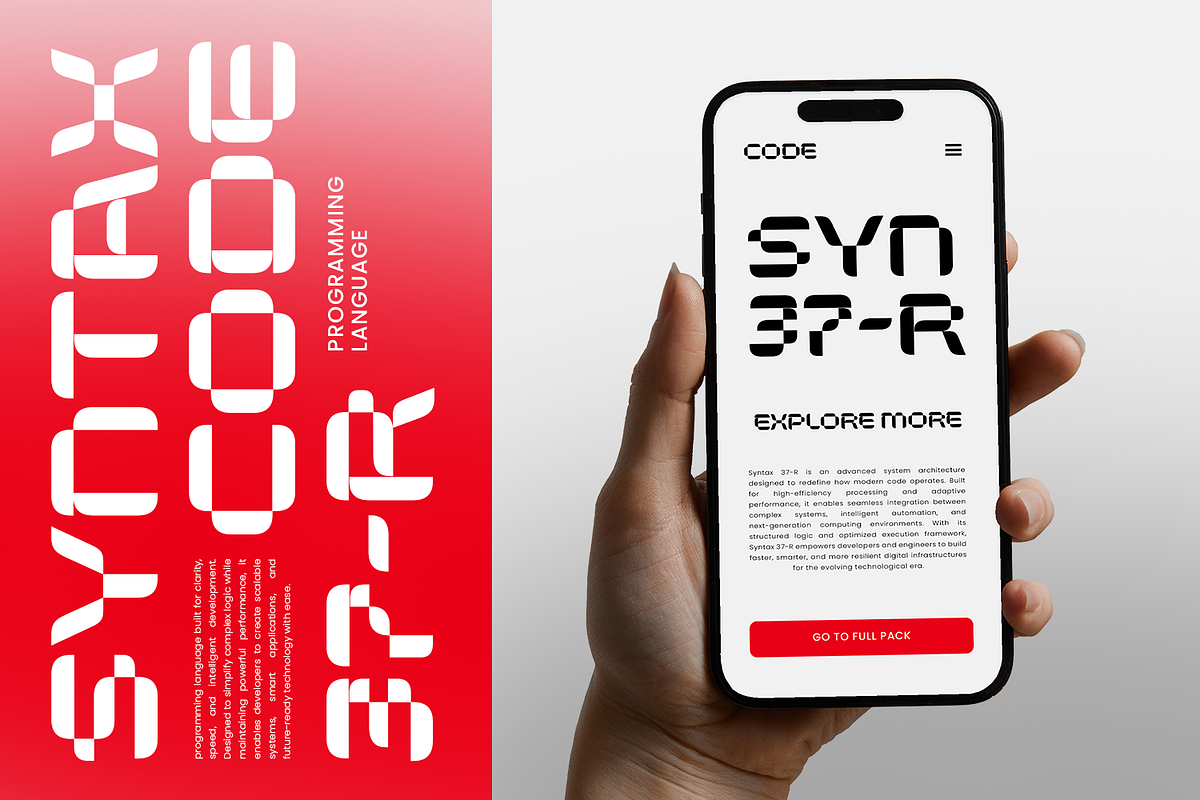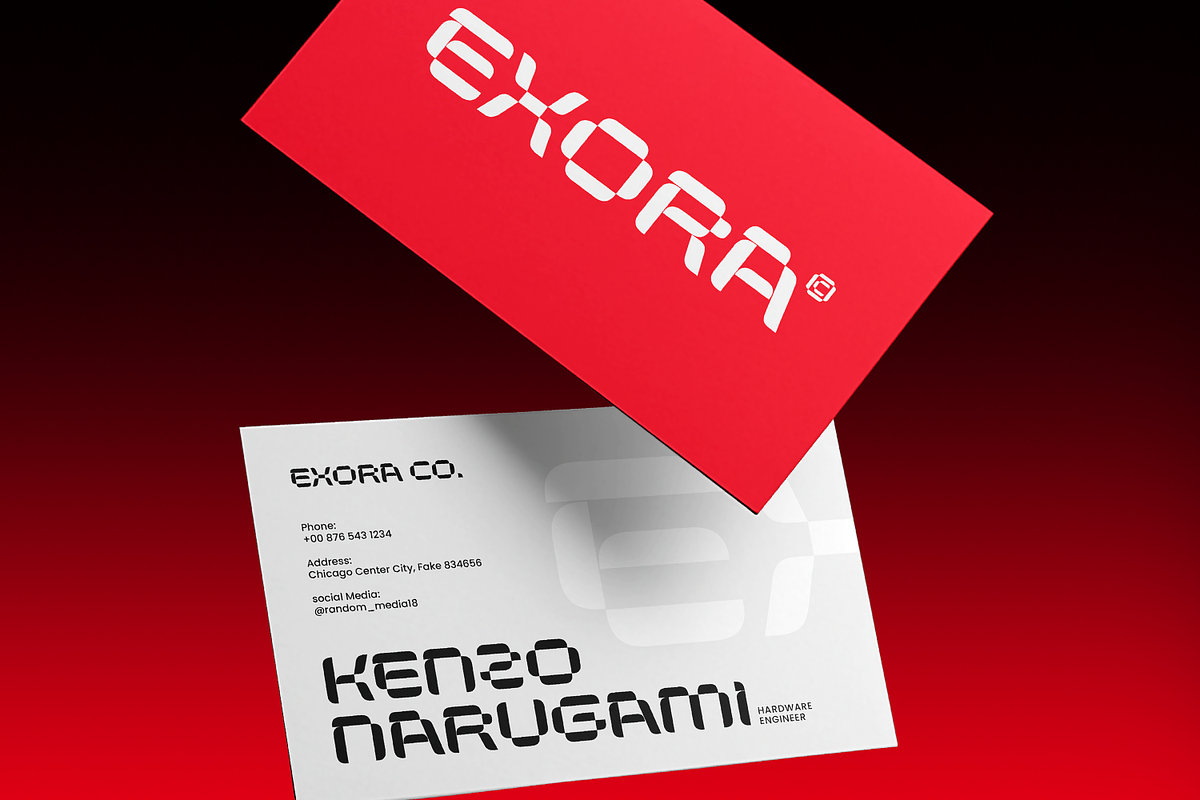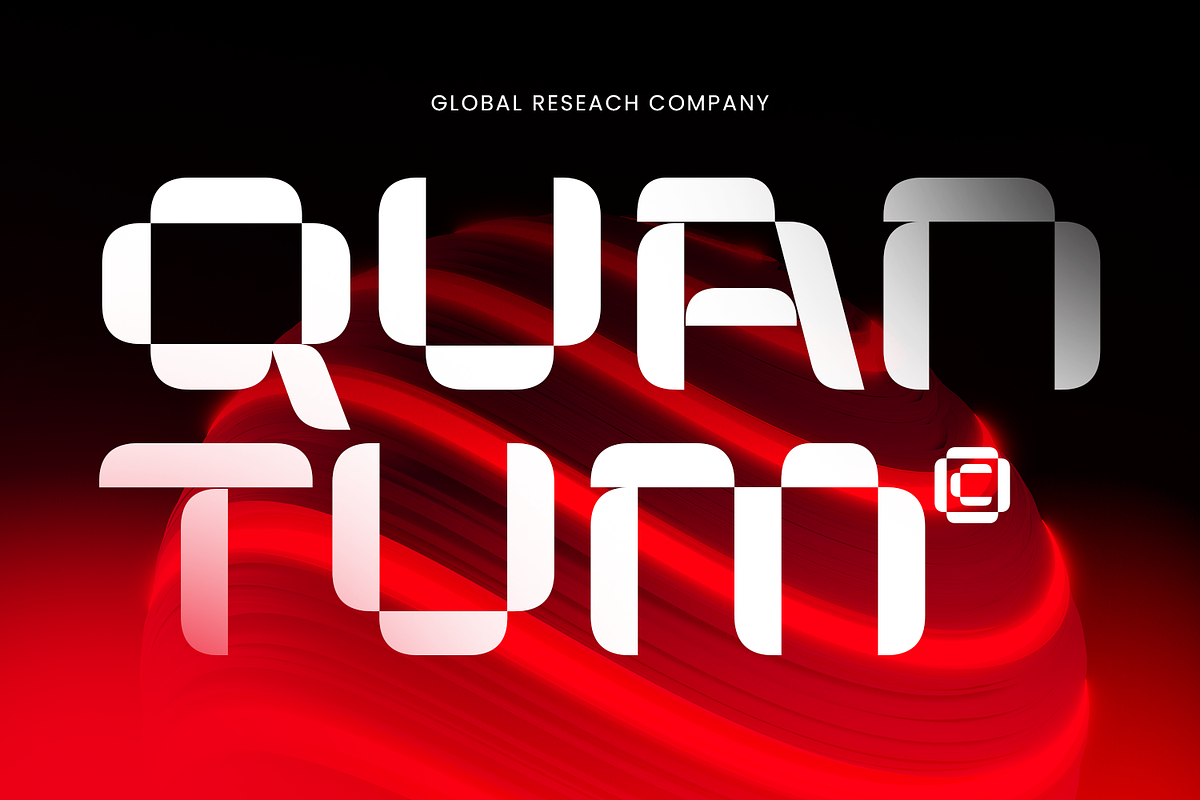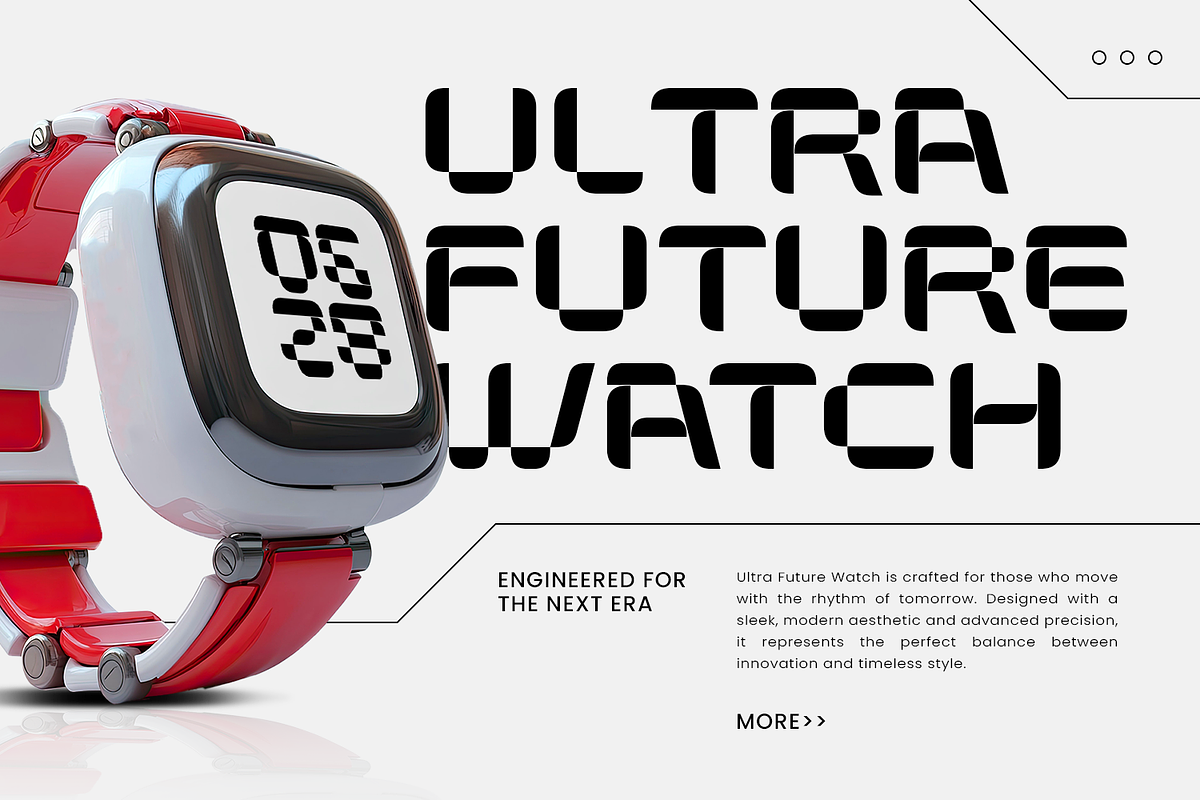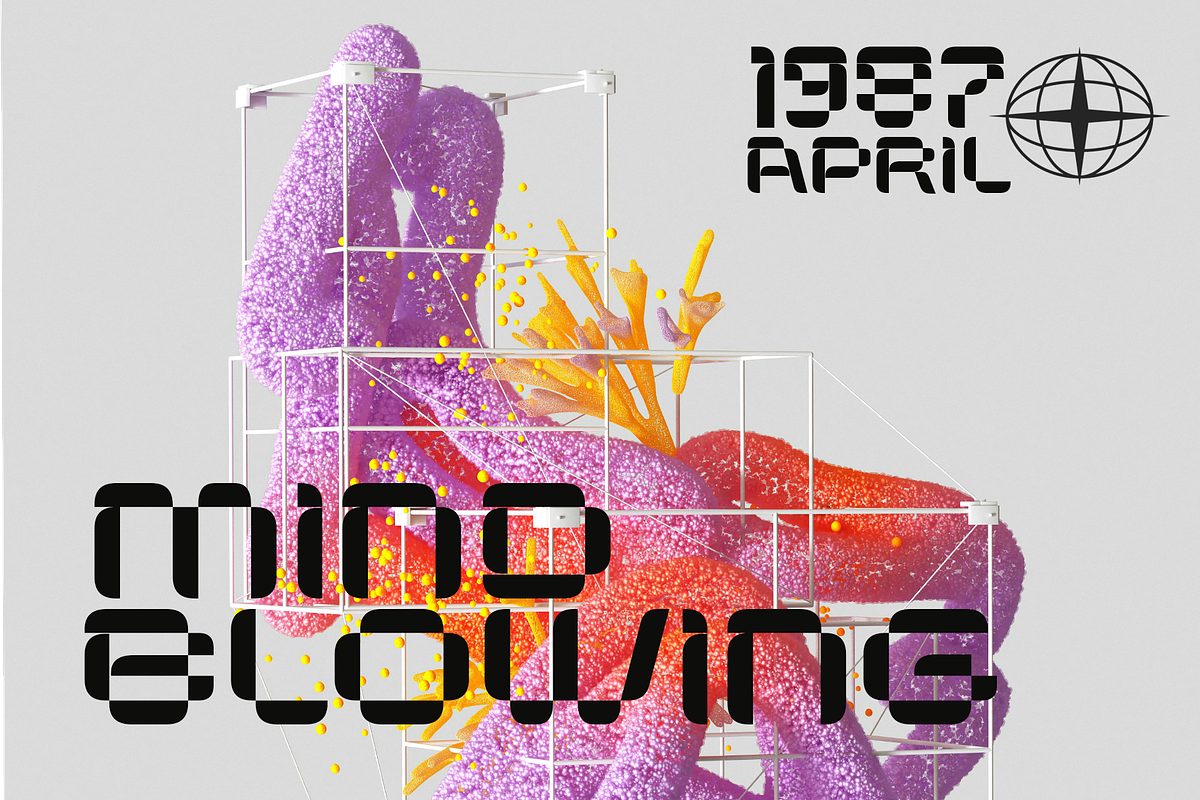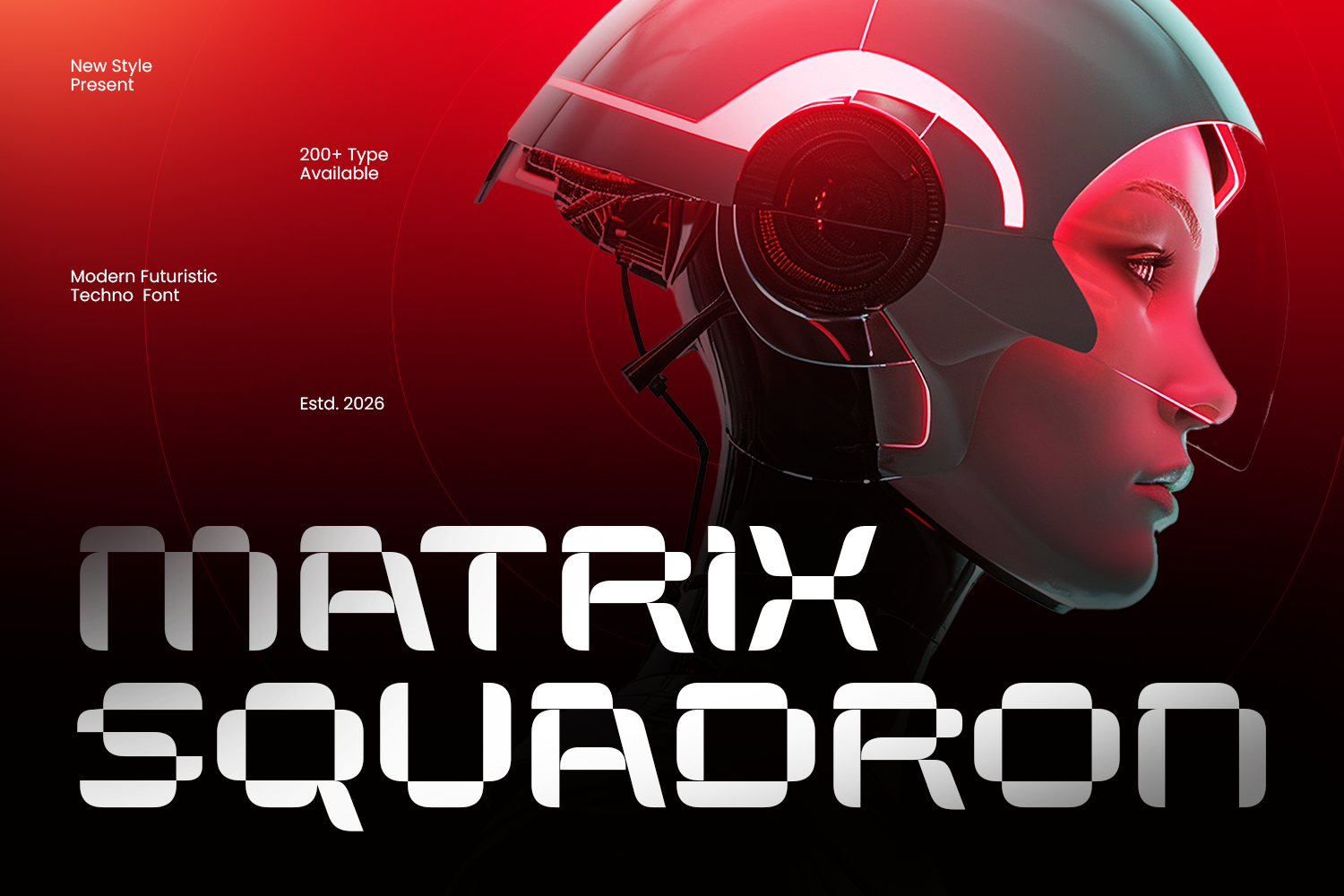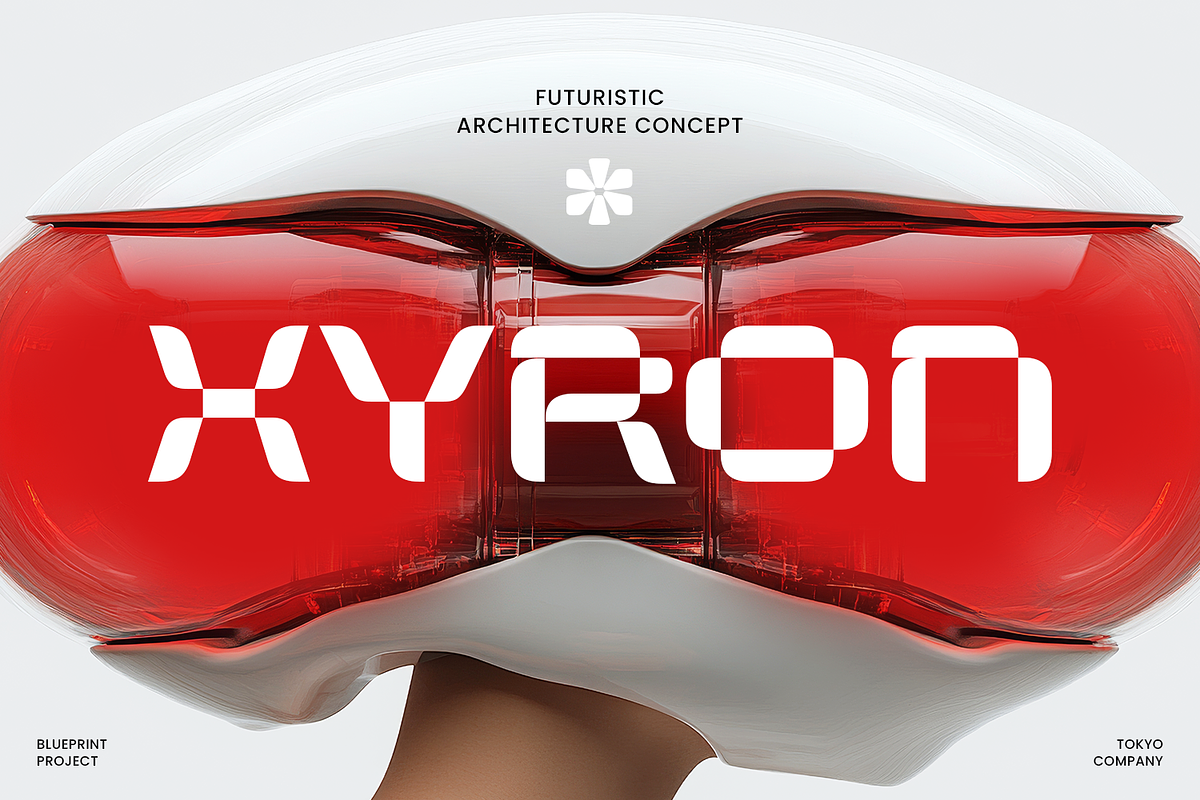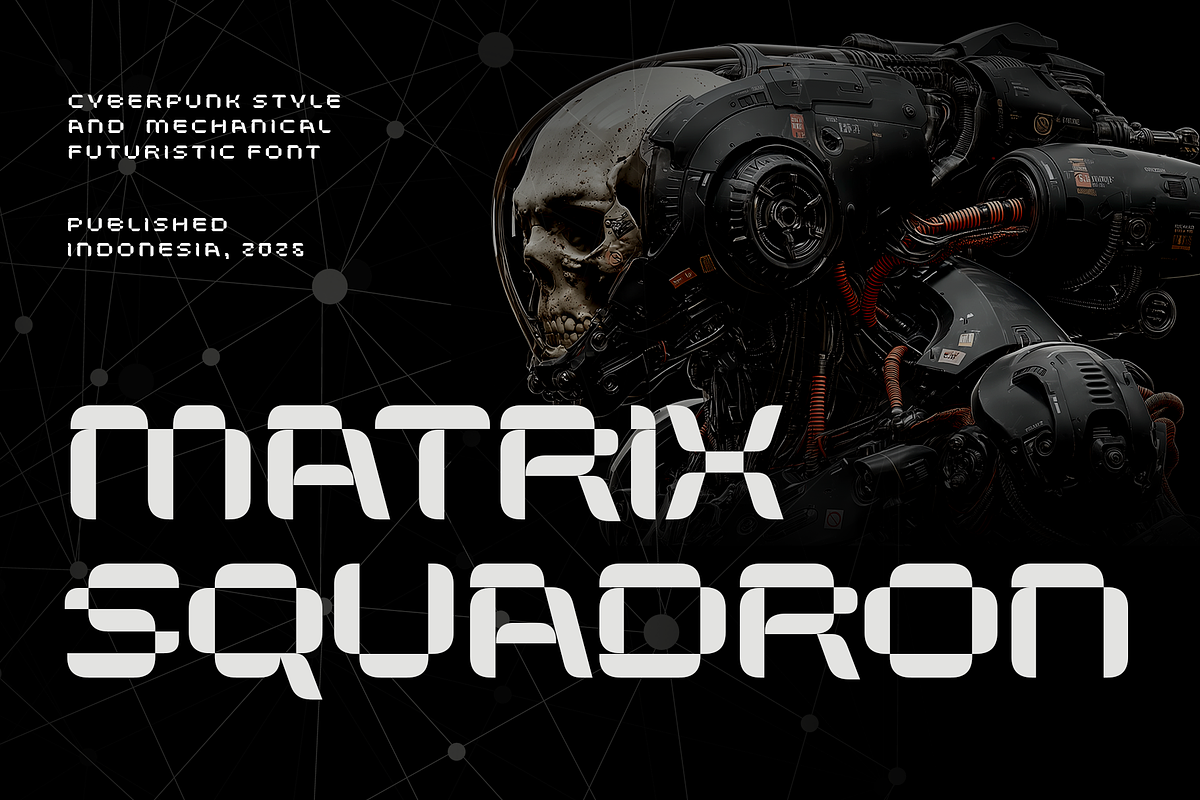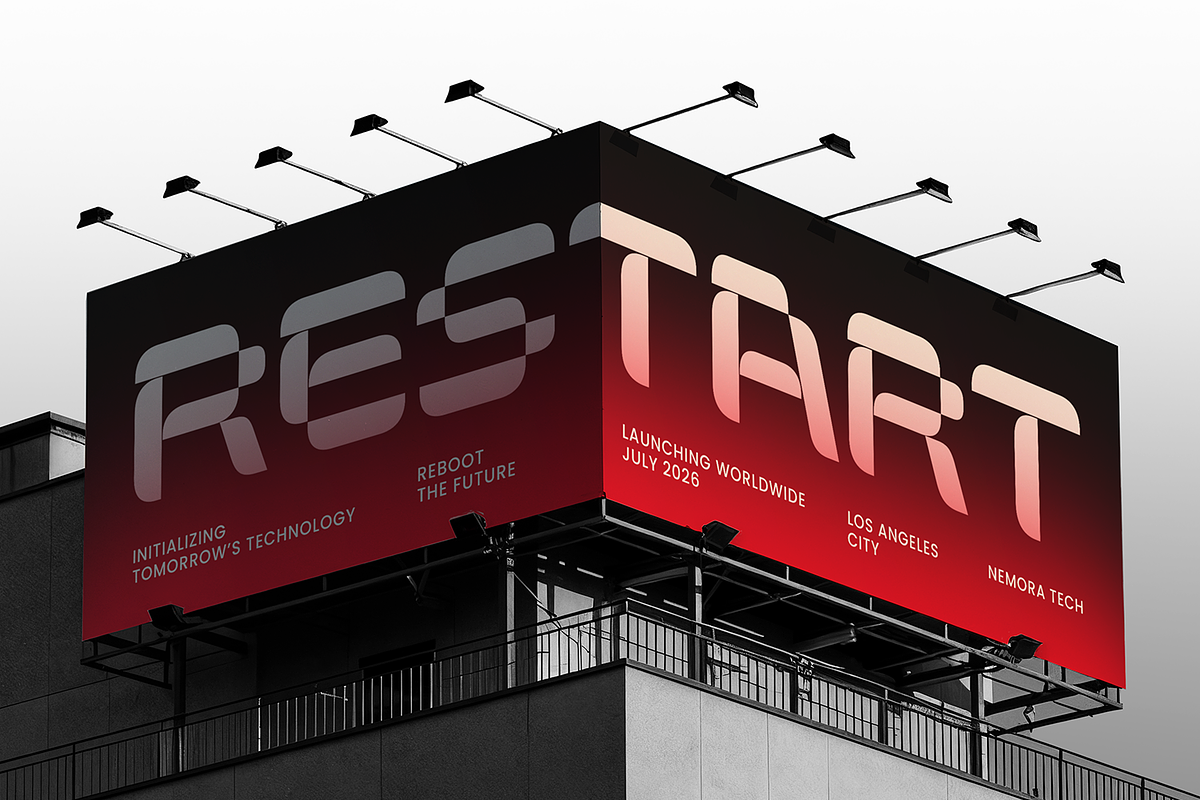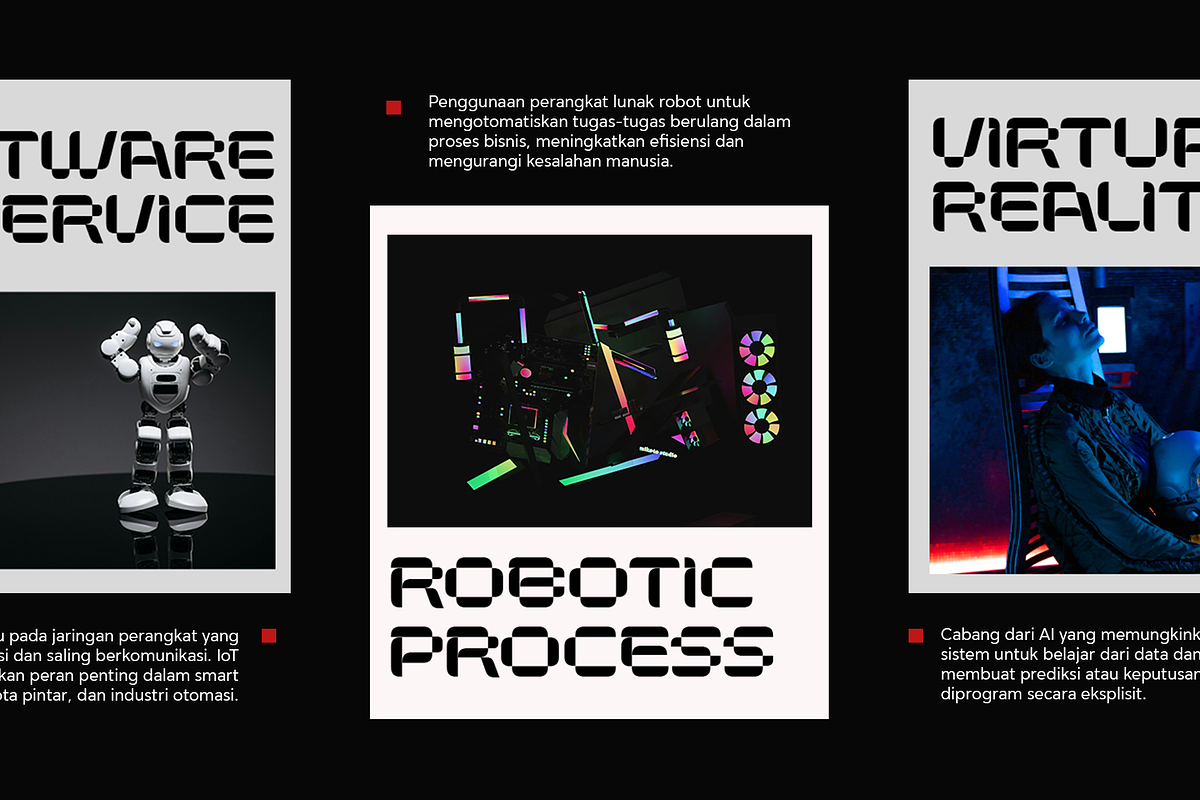
Matrix Squadron - Sci-Fi Font
Matrix Squadron – Futuristic Sci-Fi Font
Matrix Squadron is a futuristic display font engineered to deliver high-tech precision and powerful sci-fi energy. Built with sharp geometric forms, angular cuts, and streamlined structures, this font reflects the aesthetics of advanced digital systems and interstellar design. Every letter is crafted to feel fast, intelligent, and forward-thinking—perfect for projects that demand a strong futuristic identity.
Inspired by cyberpunk visuals, space exploration, and next-generation interfaces, Matrix Squadron brings a bold and dynamic presence to any layout. Its clean yet complex construction ensures excellent readability while maintaining a distinctive sci-fi character. The balance between strong uppercase forms and refined lowercase shapes allows it to perform seamlessly across display-focused designs.
Matrix Squadron excels in a wide range of modern applications, including tech branding, gaming titles, movie posters, UI/UX interfaces, esports graphics, and futuristic packaging. The precision-crafted letterforms create a digital rhythm that feels like part of a control panel, system interface, or spacecraft dashboard—making every composition visually striking.
Designed with versatility in mind, Matrix Squadron adapts effortlessly to both minimal layouts and high-impact compositions. Whether used in neon-glow cyber themes or clean monochrome designs, it maintains clarity, consistency, and a cutting-edge style across digital and print media.
With its sleek geometry and innovative tone, Matrix Squadron helps brands communicate technology, speed, and modern sophistication, making it ideal for creative professionals working in forward-looking industries.
Futuristic Display Font Designed with sharp geometric forms and sci-fi aesthetics.
Cyberpunk & Tech-Inspired Style Perfect for digital, gaming, and futuristic visuals.
High Readability Balanced structure for clarity in display typography.
Modern Geometric Construction Clean, angular shapes with precision detailing.
Versatile Design Use Works across digital and print environments.
Multilingual Support Extended character set for global use.
Design the Future with Matrix Squadron
If you’re looking for a font that captures innovation, speed, and futuristic energy, Matrix Squadron is the perfect choice. Its bold sci-fi design and precise geometry make it ideal for creating cutting-edge visuals that stand out in the digital age.